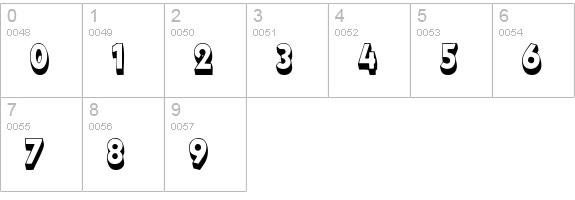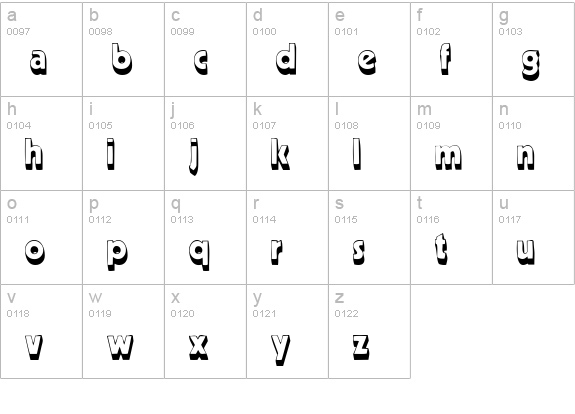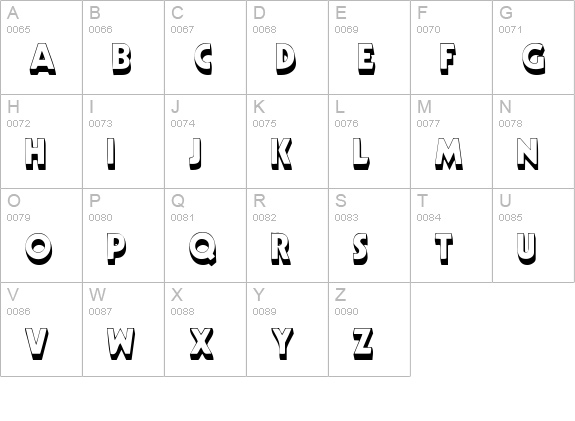
MeppDisplayShadow is a versatile and eye-catching font that will make your designs stand out. This unique display font features a distinctive shadow effect that adds depth and dimension to your text. Its modern yet playful style makes it perfect for a wide range of projects, from posters and logos to social media graphics and more. Best of all, MeppDisplayShadow is completely free to use! You can download this font at FontsMarket.com and start using it in your designs right away. Whether you're a seasoned designer looking to add a fresh touch to your work or a newcomer searching for the perfect font for your project, MeppDisplayShadow is sure to impress. Don't miss out on this fantastic free font – download it today and let your creativity soar!